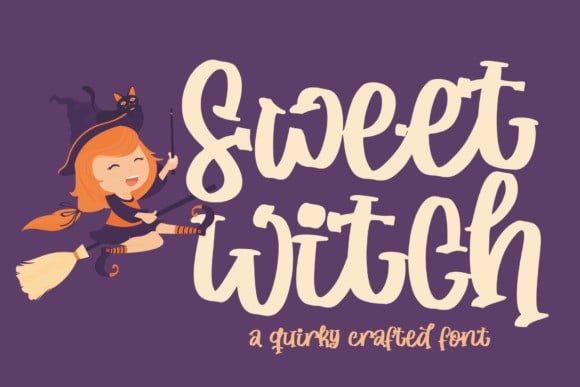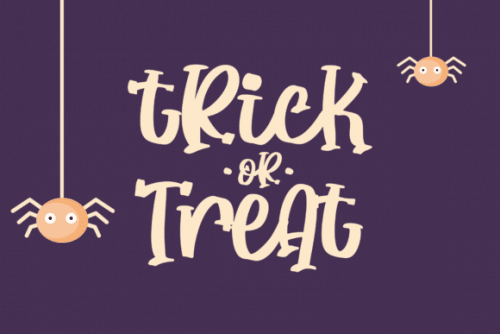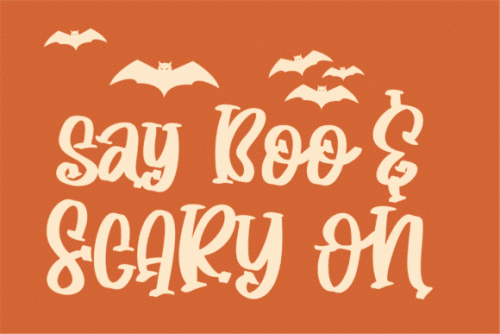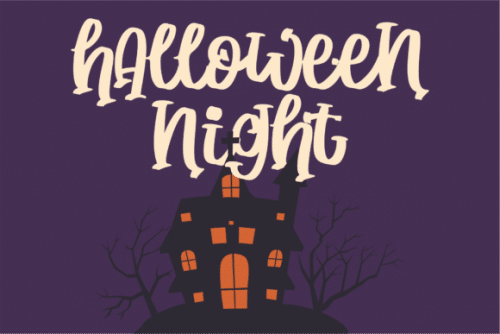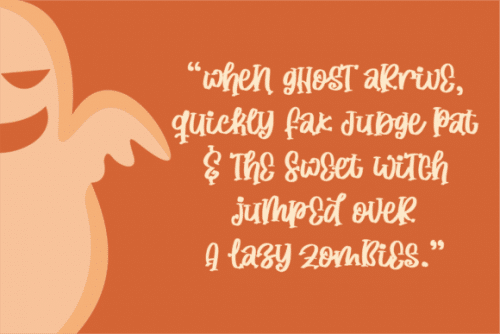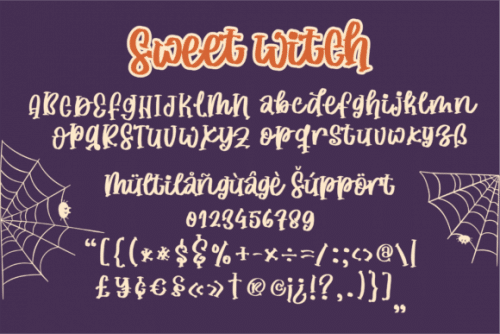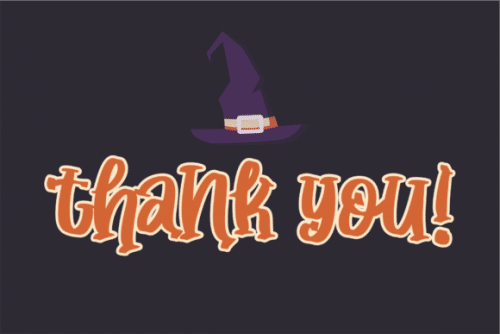
Sweet Witch embodies fun, quirkiness and authenticity. This enchanting display font will turn any creative idea into a true standout.
Get creative with its childlike playfulness, and use it to brighten up any kids and school project!